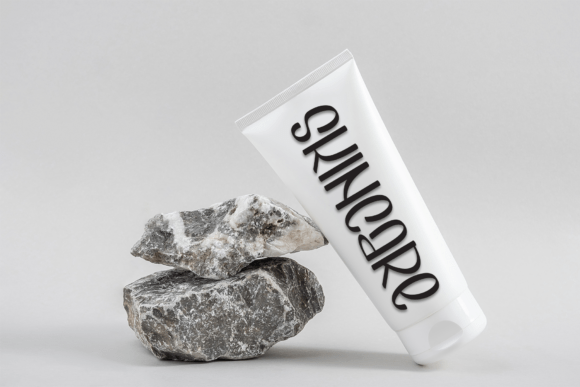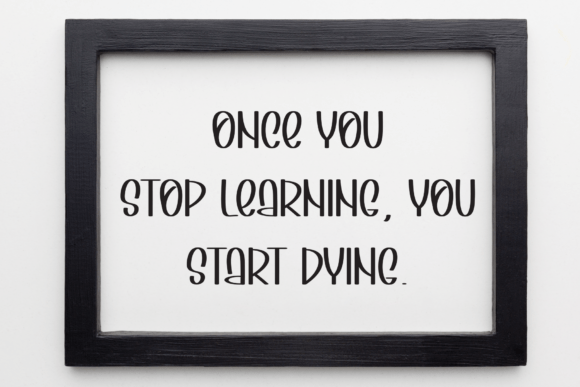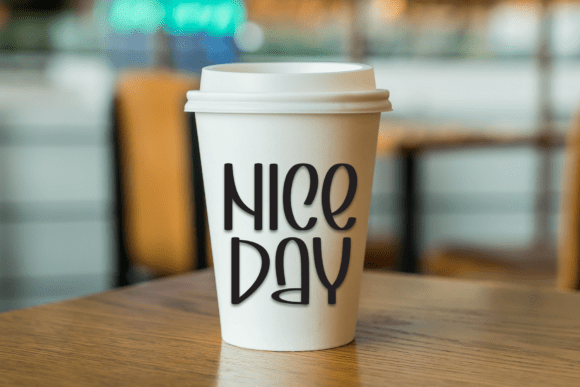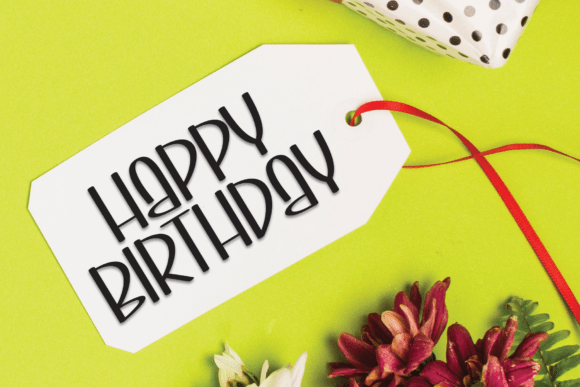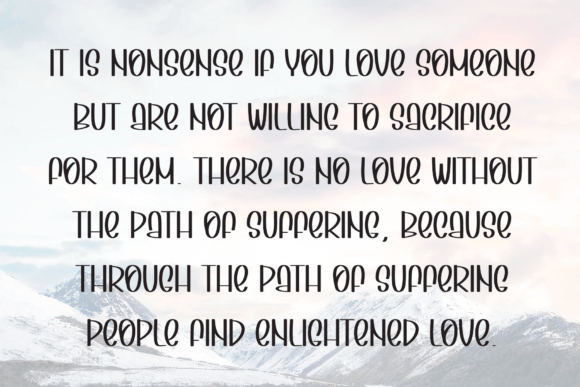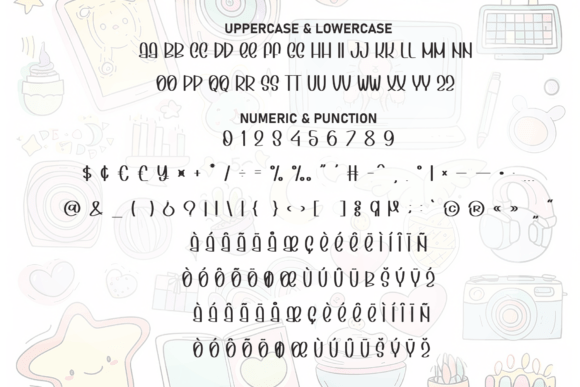
The Cute Bundle Font: A Playful and Charming Typeface for Creative Projects
I still remember the time I was working on a children’s sticker sheet project, and I was struggling to find the perfect font. My client wanted something that was playful, yet readable, and would appeal to kids. I scoured the internet, tried out numerous fonts, but nothing seemed quite right. That was until I stumbled upon the Cute Bundle font. Its tall, rounded letterforms and creative handwritten style instantly caught my attention, and I knew I had found the perfect fit. In this article, I’ll share my experience with the Cute Bundle font, its features, and how to make the most of it in your designs.
An Honest Review of Cute Bundle Font
- ✨ Playful and charming: The Cute Bundle font has a unique, creative handwritten style that adds a touch of warmth and friendliness to any design.
- ✅ Readability: Despite its playful nature, the font is surprisingly readable, making it perfect for body text in children’s products, stickers, and stationery.
- 💕 Versatility: The font comes with a range of OpenType features, glyphs, and stylistic alternates, making it versatile for various design projects.
While the Cute Bundle font is amazing, there are a few things to keep in mind:
- 🤔 Limited use in formal designs: Due to its playful nature, the Cute Bundle font might not be the best fit for formal designs or projects that require a more professional tone.
- ⚠️ Glyph compatibility: Some glyphs or special characters might not work seamlessly with all design software or platforms.
The Backstory of Cute Bundle Font
The Cute Bundle font was designed with the intention of creating a playful, charming typeface that would bring joy to designs. The designer aimed to craft a font that would be perfect for children’s products, stickers, stationery, and fun branding projects. With its creative handwritten style and tall, rounded letterforms, the Cute Bundle font has become a go-to choice for designers seeking a friendly, approachable look.
Q: What is the Cute Bundle font best used for?
A: The Cute Bundle font is perfect for children’s products, stickers, stationery, and fun branding projects that require a playful, yet readable typeface.
Q: Does the Cute Bundle font come with OpenType features?
A: Yes, the Cute Bundle font comes with a range of OpenType features, glyphs, and stylistic alternates, making it versatile for various design projects.